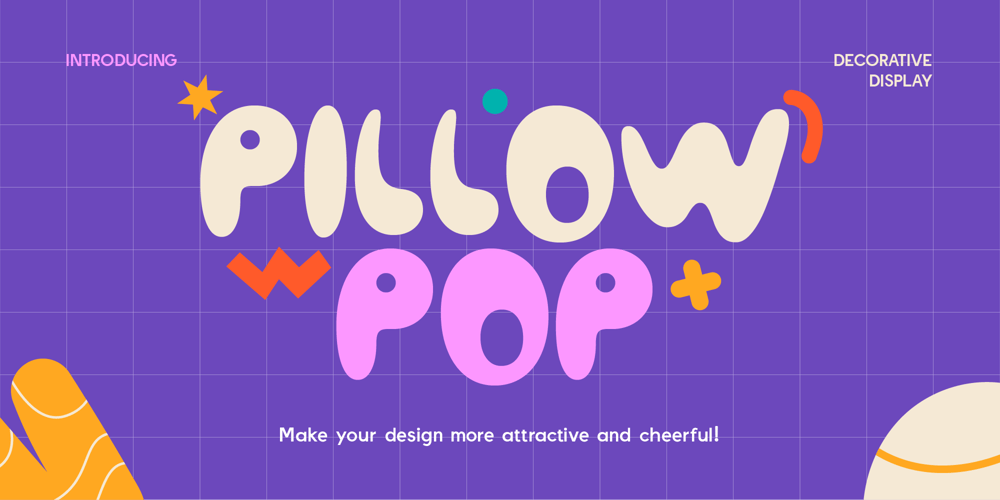
Pillowpop Font Family was designed by Dede Kurniawan and published by Creatifont Studio. Pillowpop contains 1 styles and family package options. Pillowpop is a playful decorative display font that features a bubbly, free-flowing style. Its soft, rounded shapes give it a light-hearted and joyful feel, perfect for designs that need a fun, cheerful, and energetic touch. Whether you’re working on kids’ projects, branding, or party invitations, Pillowpop adds a vibrant and happy personality to any design. Its unique shapes make it especially suited for projects that aim to capture a sense of whimsy and creativity.A SUMMARY OF WHAT’S INCLUDED: Standard Character A-Z, a-z, 0-9, Punctuation & symbols Multilingual Support Regular Style Works on PC & Mac Simple installation Accessible in Adobe Creative Suite (Ai, Ps, Id, etc.) even work on Microsoft Word. PUA Encoded Characters – Fully accessible without additional design software. 🌟If you come across any issues or notice anything we might have overlooked while using this product, please feel free to reach out to us. We greatly value your feedback as it helps us enhance and refine our products. Thank you!